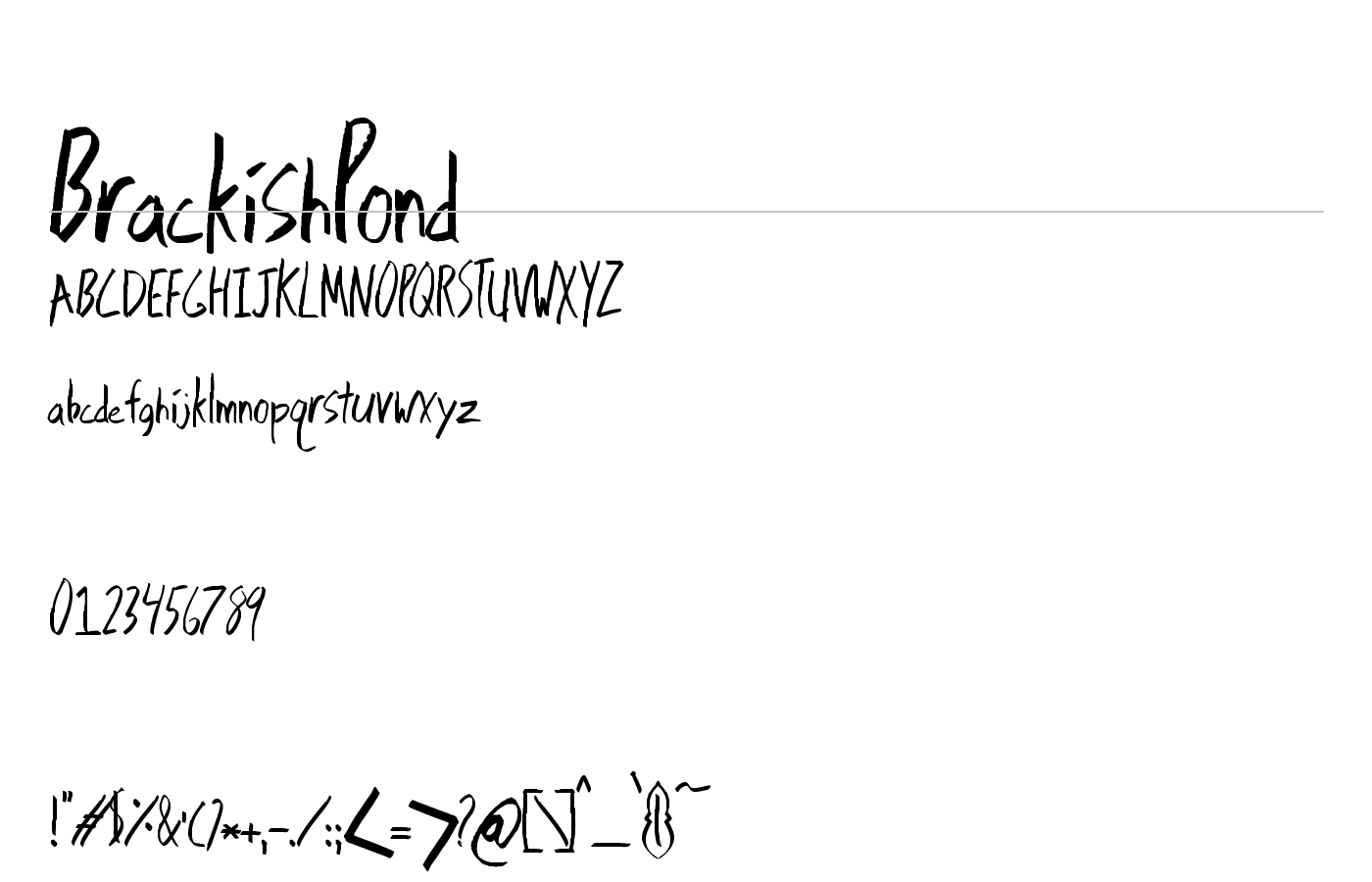
BrackishPond is a quirky, hand-drawn sans serif font with a narrow, irregular structure that gives it a playful and slightly edgy personality. Its tall, uneven letterforms and fast, sketchy strokes evoke a casual, artistic vibe, making it perfect for creative projects, informal branding, and fun headlines. This font works well in designs that want to convey originality and a handmade feel, such as posters, personal blogs, and unique product packaging.
BrackishPond Font
About BrackishPond Font
| Designer | Max Infeld |